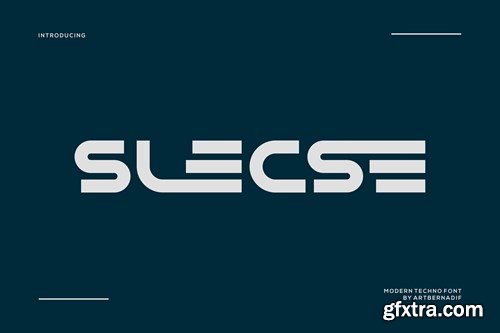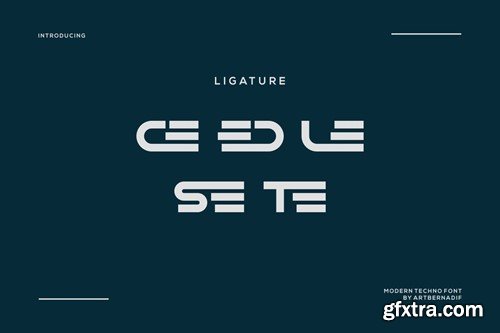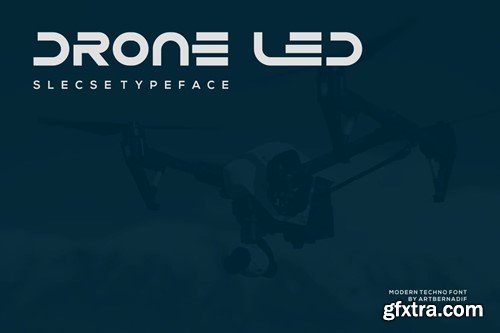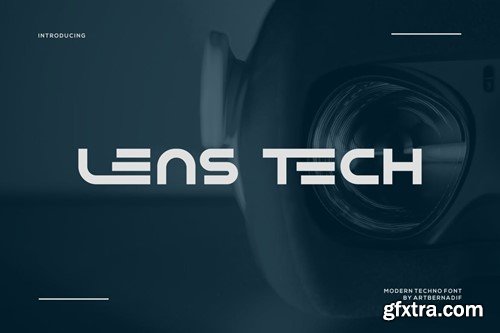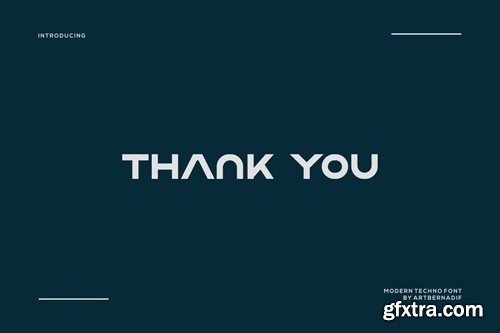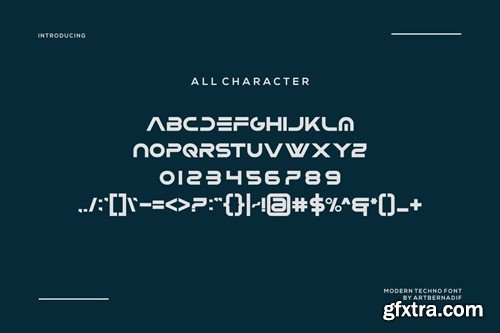
Seleç - 现代科技字体 XUNTAE2
Slecse - Modern Techno Font
Introducing our new product Slecse Modern Techno Font is a bold and authentic display font. The font is suitable for any branding project like logo, t-shirt printing, esport, and many more. outstanding in a wide range of contexts. availlable